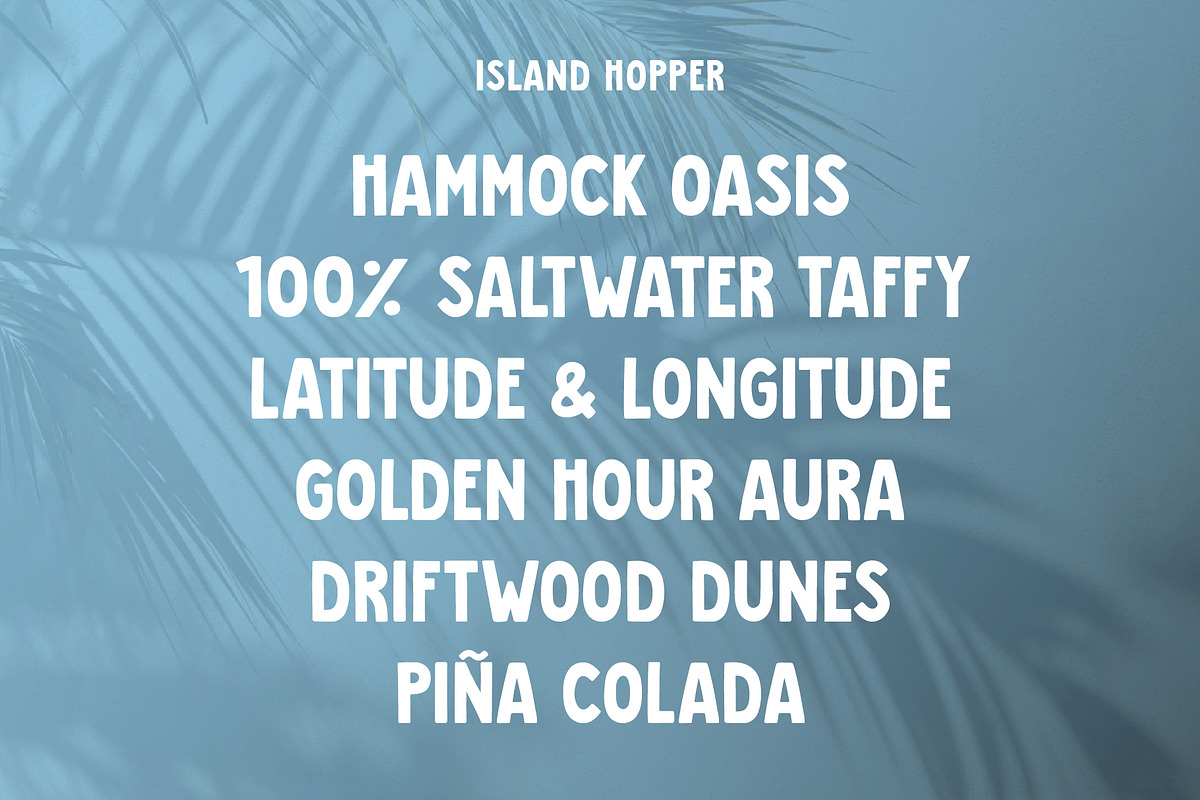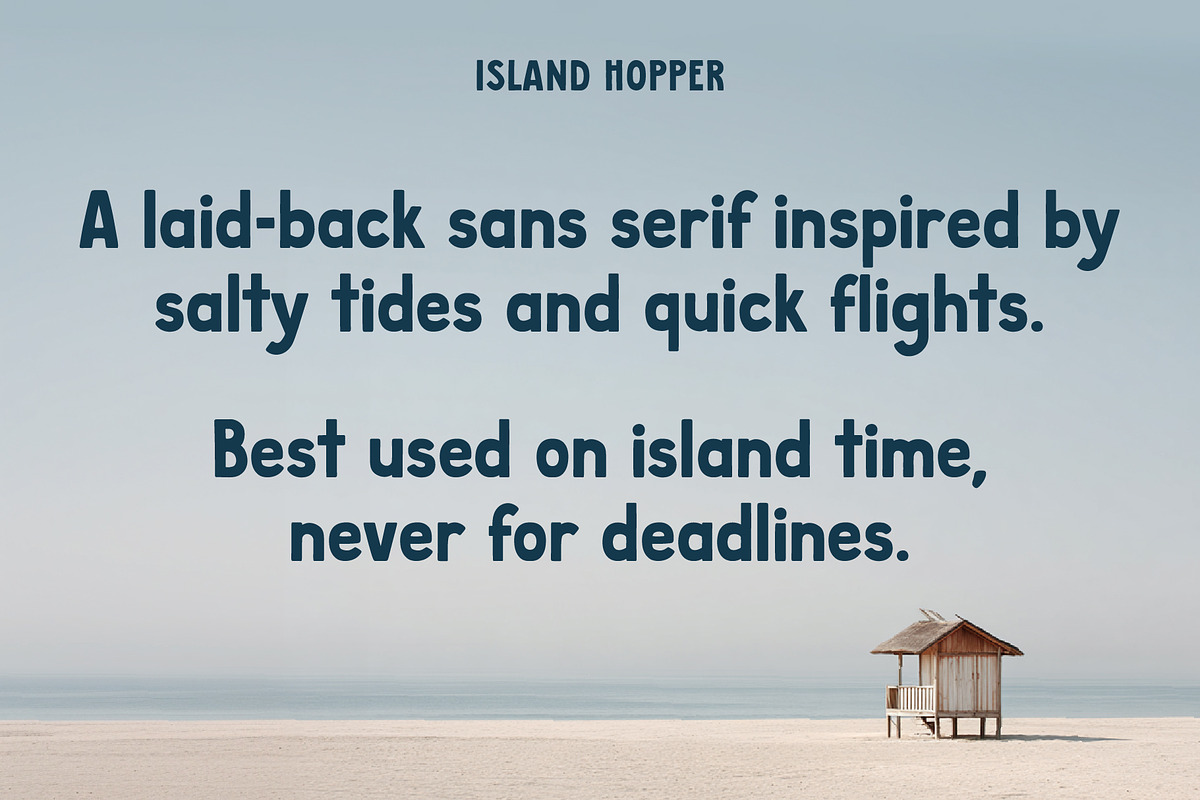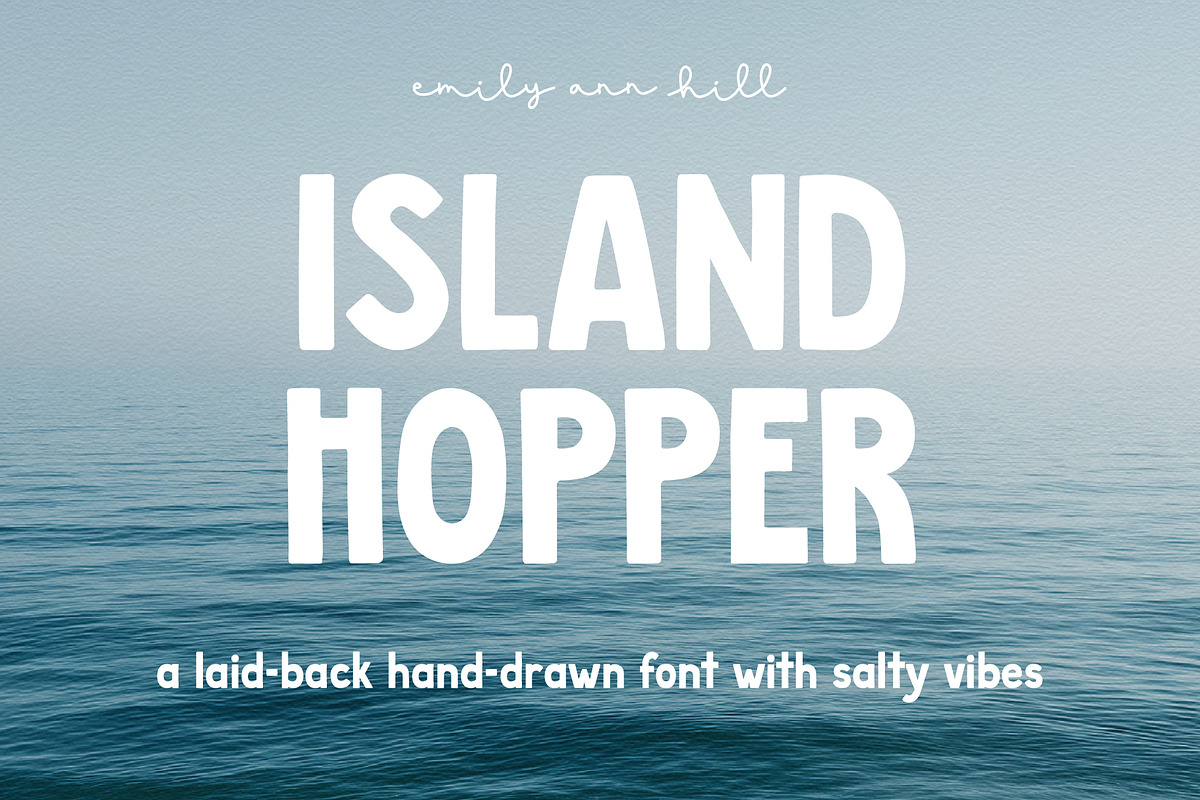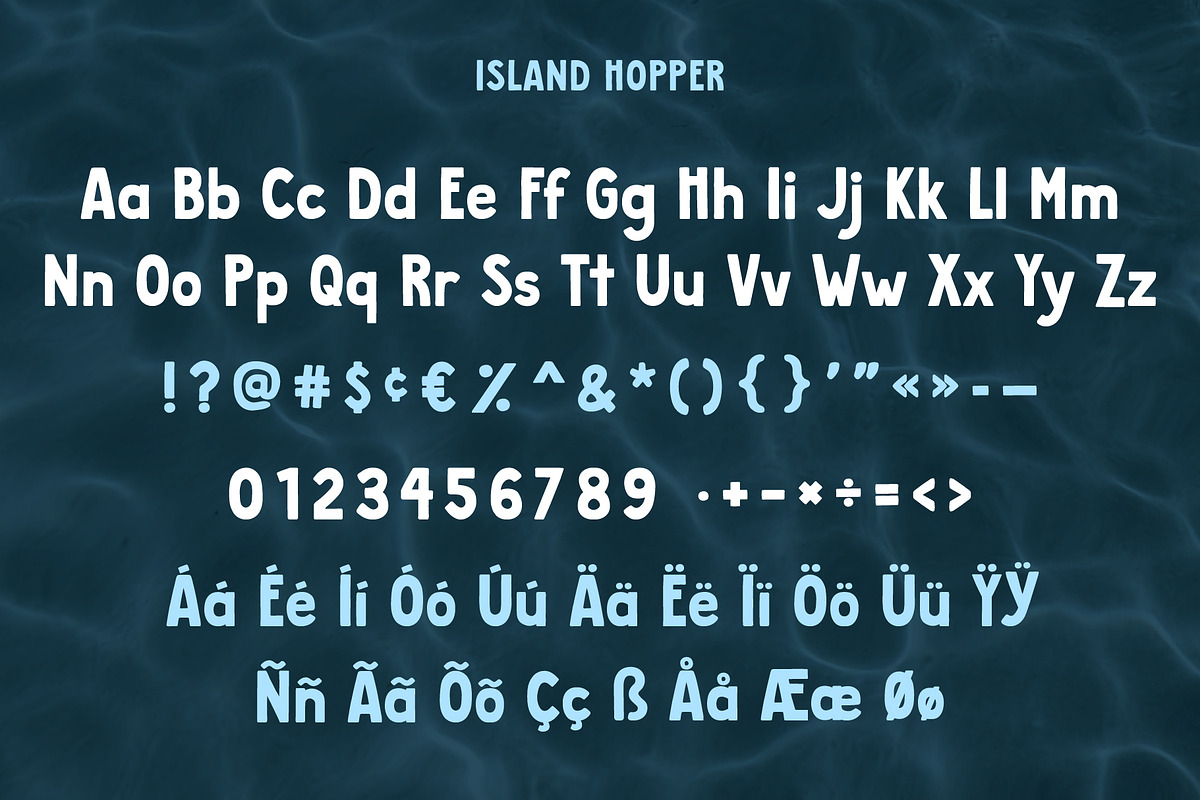
Island Hopper by Emily Ann Hill
Island Hopper is a laid-back, hand-drawn sans serif font inspired by salty tides and quick flights.
With relaxed letterforms, subtle irregularities, and gentle curves, Island Hopper adds a casual, friendly vibe to any project. It’s equally versatile for social media graphics, invitations, and lifestyle products, infusing your designs with a breezy, approachable charm.
- Uppercase Letters
- Lowercase Letters
- Punctuation & Symbols
- Latin Character Support for Multilingual Use
Whether you’re designing surf shop signage, a poster for summer event, or a logo with tropical beach bum vibes, Island Hopper is sure to add a relaxed, island-inspired personality to your work!